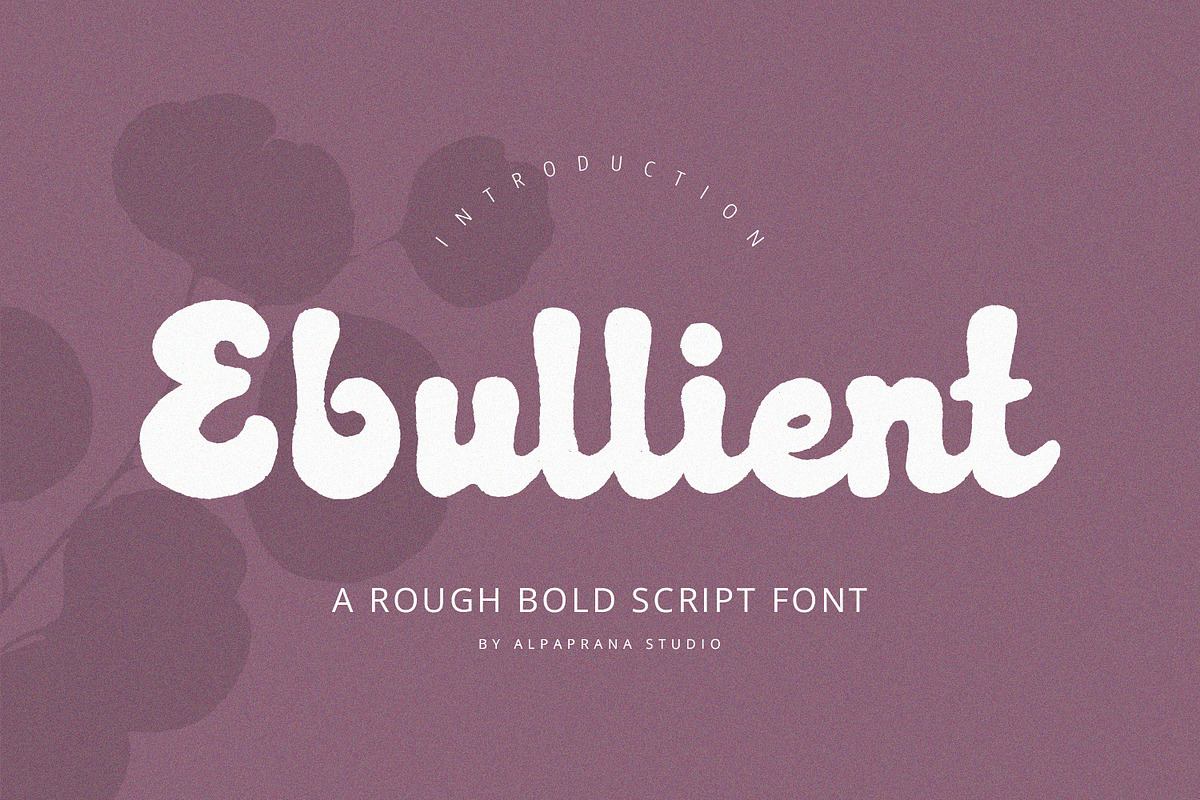
Ebullient - Rough Script Font Free Download is an expressive and energetic typeface that blends the charm of hand lettering with a rugged, textured edge. Perfect for bold branding, apparel design, music posters, social media graphics, and edgy packaging, this font adds a raw, artistic vibe to any creative project.
Its rough brush strokes and dynamic flow give Ebullient a rebellious personality—ideal for designers looking to break away from the clean and polished. Each character feels handcrafted, bringing authenticity and motion to your typography.